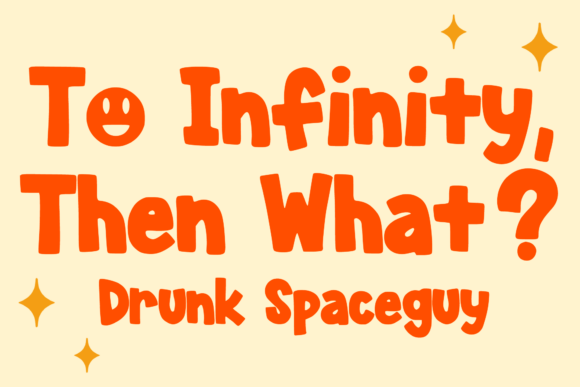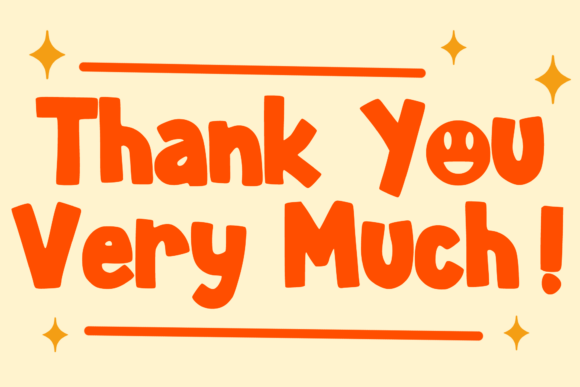
Boss Smile Font
Boss Smile is a bold marker font that bursts with fun and playful vibes while flaunting a unique smile twist in its design.
This versatile display typography solution promises to take your creative projects to new and exciting heights.
Boss Smile is the perfect choice to inject charm into countless design ideas. Picture it on vibrant stickers, stylish T-shirt prints, impactful logos, captivating book or magazine covers, engaging comic artworks, expressive cartoon sketches, and even in your everyday typing needs.
Infusing that extra dash of cool into your projects, Boss Smile is the font that keeps your designs fresh and vibrant!